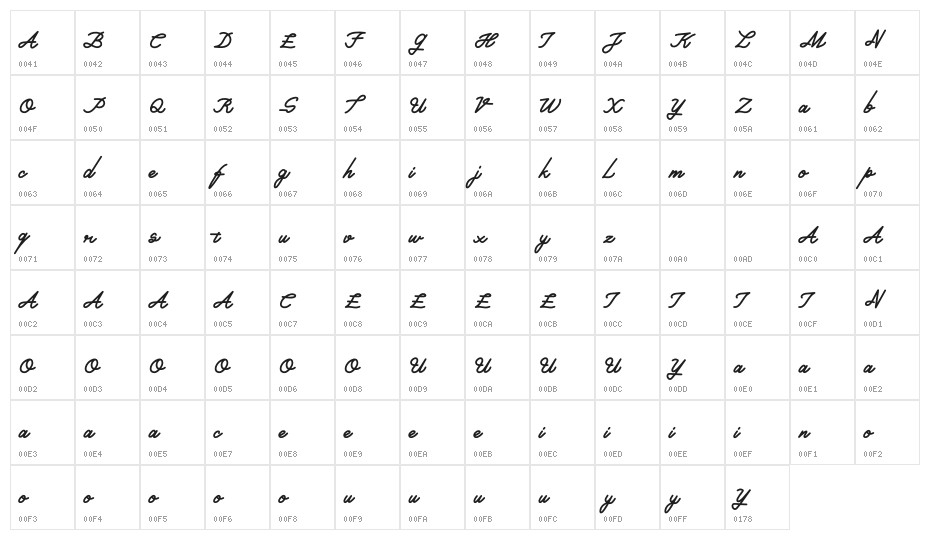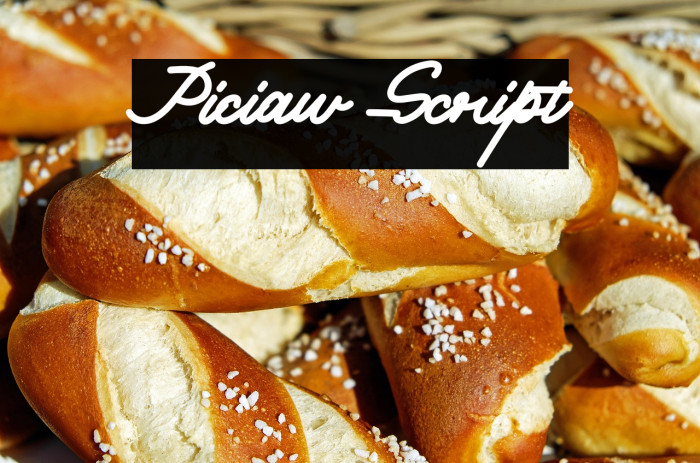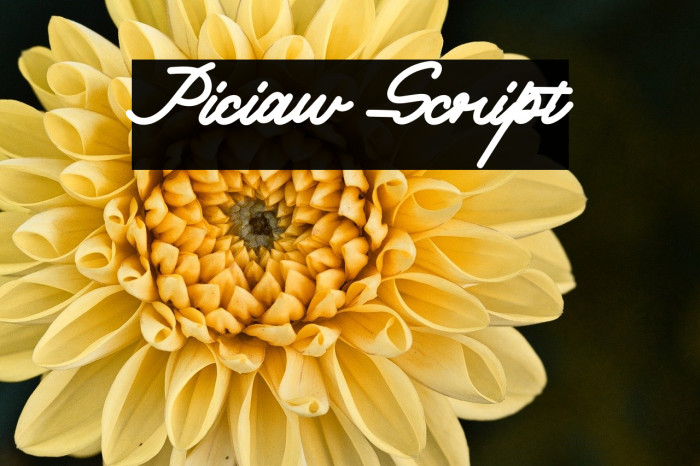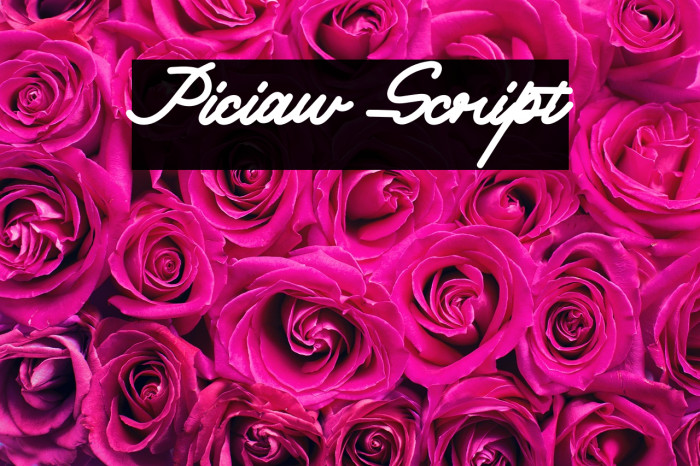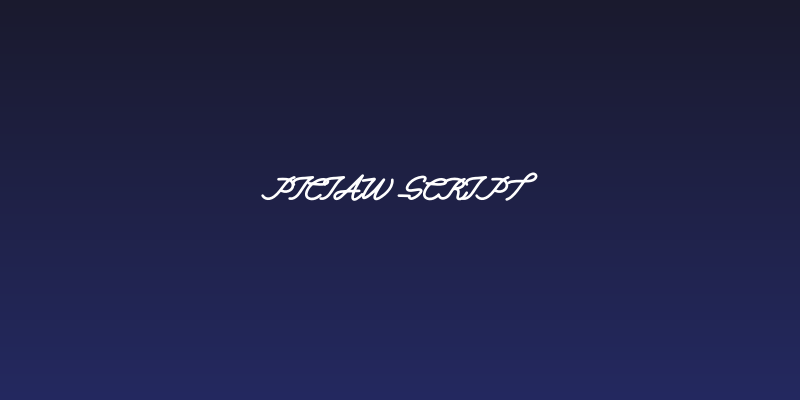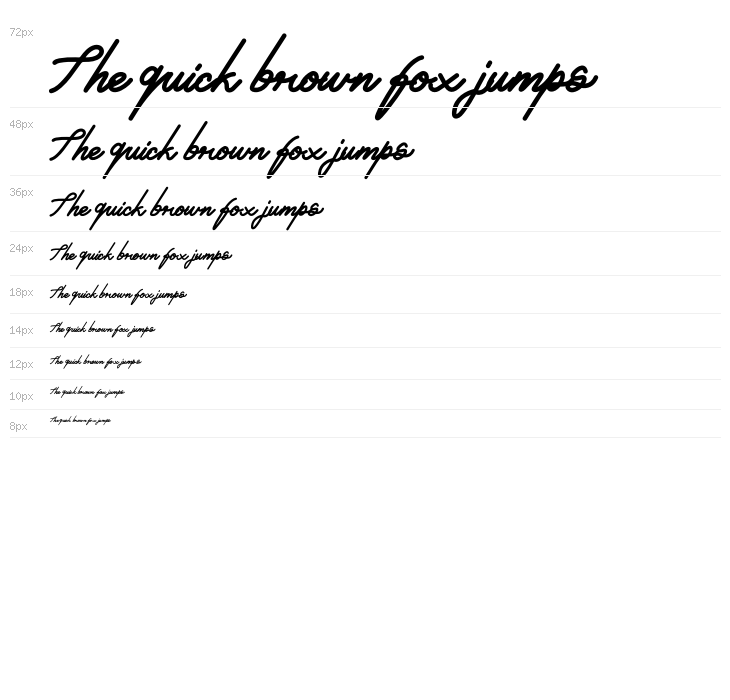
Piciaw Script Font
Piciaw Script Description
This script font features a flowing, cursive style with elegant loops and swashes. The uppercase letters are bold and interconnected, creating a seamless flow across words. The lowercase letters maintain a consistent style, with smooth curves and a slight slant, enhancing readability. The font exudes a sense of sophistication and grace, making it ideal for formal invitations or branding that requires a touch of elegance. The absence of special characters suggests a focus on alphabetic text, emphasizing its use in decorative contexts.
| Overall Style | Elegant |
| Proposed Projects | Ideal for wedding invitations, elegant branding, and decorative signage. |